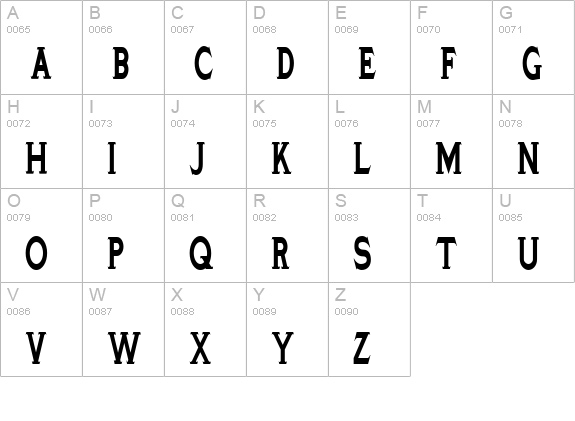
TinplateTitlingBlackNarrow Font Details
TinplateTitlingBlackNarrow font is a sleek and stylish typeface that exudes modernity and elegance. Its narrow design allows for efficient use of space, making it perfect for titles, headlines, and other attention-grabbing elements. The bold and confident letterforms of TinplateTitlingBlackNarrow font demand attention and make a strong visual impact. The clean lines and smooth curves of this font create a sense of sophistication and professionalism. It is ideal for a wide range of design projects, including branding, advertising, packaging, and more. Whether you're designing a logo for a high-end fashion brand or creating eye-catching posters for a music festival, TinplateTitlingBlackNarrow font will add a touch of class and refinement to your work. One of the best things about TinplateTitlingBlackNarrow font is that it is freely available to download at FontsMarket.com. This means that you can start using this font right away without any restrictions or limitations. Whether you're a professional designer or a hobbyist, you can take advantage of this high-quality font without having to spend a dime. With its versatility and timeless appeal, TinplateTitlingBlackNarrow font will undoubtedly become a valuable addition to your font collection. Its strong presence and legibility make it perfect for both print and digital projects. So don't miss out on the opportunity to enhance your designs with this amazing font. Download TinplateTitlingBlackNarrow font for free at FontsMarket.com and unlock a world of creative possibilities.